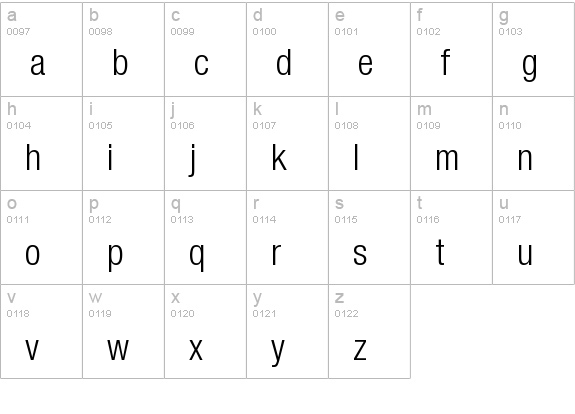
Sans Light Cond. is a refined, elegant, condensed-width variant in the Sans typeface family \xE2\x80\x94 well suited to elegant body text, refined sub-headings, and luxury branding.
Sans Light Cond is a modern and elegant font that brings a touch of sophistication to any design project. With its clean and minimalist design, this font is perfect for conveying a sense of simplicity and professionalism. The condensed style of Sans Light Cond allows for efficient use of space, making it ideal for designs where every inch matters. The versatility of Sans Light Cond is truly remarkable, as it can be used in a variety of contexts, from branding and advertising to web design and print materials. Whether you are creating a logo, designing a website, or crafting a brochure, this font will effortlessly elevate your project to the next level. One of the most exciting aspects of Sans Light Cond is that it is available for free download at FontsMarket.com. This means that you can easily access this font and incorporate it into your designs without any financial constraints. The fact that it is freely available only adds to its appeal, making it an excellent choice for designers on a budget or those who simply want to experiment with new fonts. With its sleek and contemporary aesthetic, Sans Light Cond is sure to make a lasting impression on your audience. Its clean lines and balanced proportions give it a timeless quality that will remain relevant for years to come. Whether you are designing for a corporate client, a fashion brand, or a tech startup, this font will effortlessly convey professionalism and style. In conclusion, Sans Light Cond is a versatile and stylish font that is freely available for download at FontsMarket.com. Its clean and minimalist design, along with its condensed style, make it perfect for a wide range of design projects. So go ahead, download Sans Light Cond and let your creativity shine.